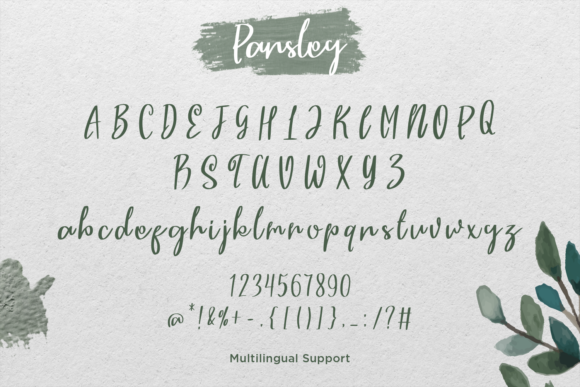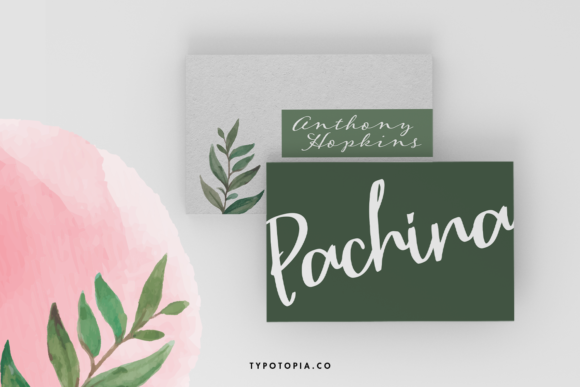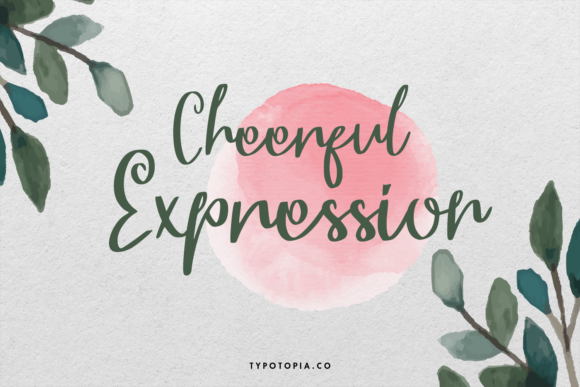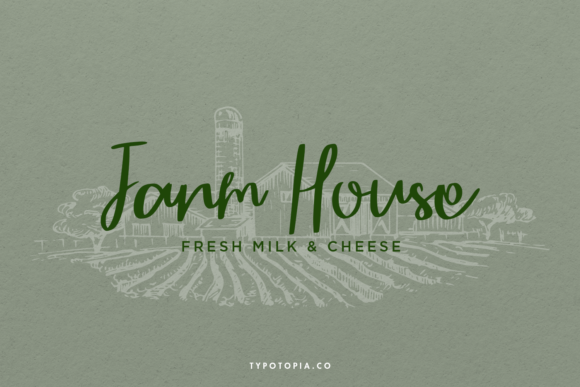
About Parsley Font
Parsley is a lovely and timeless handwritten font. It is the best choice for creating eye catching logos, branding and quotes. Every letter has a unique and beautiful touch, which will make your design come alive!